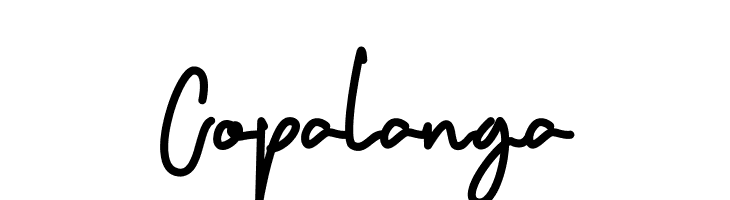
A bold, handwritten font with a playful and casual style.
A playful, whimsical handwritten font with flowing, irregular letterforms.
A fluid, handwritten font with an artistic and casual style.
A playful, handwritten font with smooth, rounded edges and a tall, narrow appearance.
A playful handwritten font with fluid, organic letterforms and consistent stroke width.
A playful, cursive handwritten font with smooth, flowing curves.
A playful, handwritten cursive font with medium contrast and dynamic flow.
A dynamic, expressive handwritten font with fluid, interconnected strokes.
A stylish, handwritten font with elegant, flowing strokes.
A charming handwritten script with smooth, flowing connections.